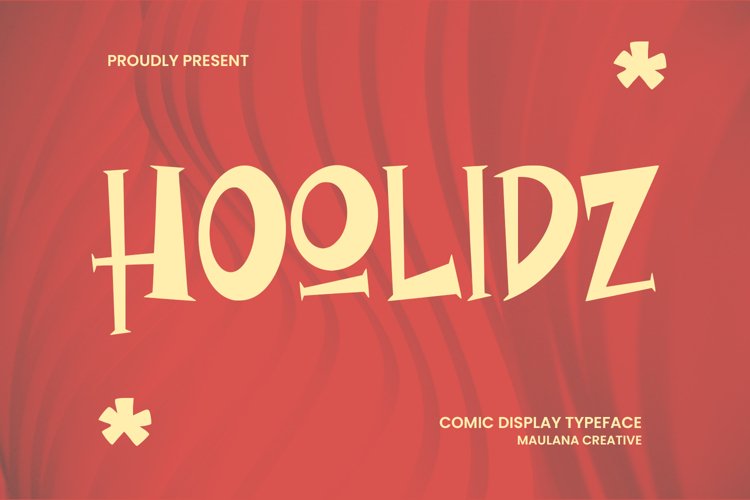
Hoolidz comic display typeface. With medium low contrast stroke, fun character with a bit of ligatures and alternates. To give you an extra creative work. Hoolidz comic display typeface support multilingual more than 100+ language. This font is good for logo design, Social media, Movie Titles, Books Titles, a short text even a long text letter and good for your secondary text font with script or serif. Make a stunning work with Hoolidz comic display typeface.